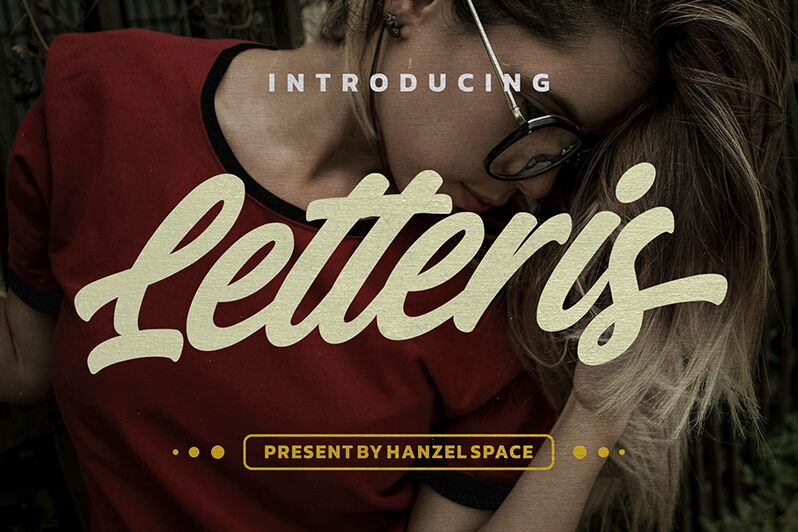
Letteris font family by Hanzel Space is a free calligraphy display typeface that offers an elegant and modern touch to any design. With expressive and suspended elements, this 2-font family captures a dynamic flow and casual elegance in its letterforms. Its design brings a modern-retro look that effortlessly creates an impactful presence in a variety of applications.
Its contemporary application makes it perfect for use in branding, headlines, quote posts, business cards, and logos. Letteris can be incorporated into various fields with ease. Use it to give wedding invitations, social media posts, greeting cards, packaging, and posters an eye-catching aspect that leaves a lasting impression.
Introducing Letteris - a bold script font inspired by hand lettering styles. The Letteris font is perfect for branding logotypes, headlines, book covers, flyers, packaging, posters, t-shirt designs, and much more.
Letteris features many alternative characters and OpenType features like stylistic alternatives, stylistic sets, ligatures, and swashes, allowing you to mix and match as you desire.
- Full set of standard alphabet and punctuation
- Multilingual characters (ẂŴẄẀŶỲ ẃŵẅẁŷỳ)